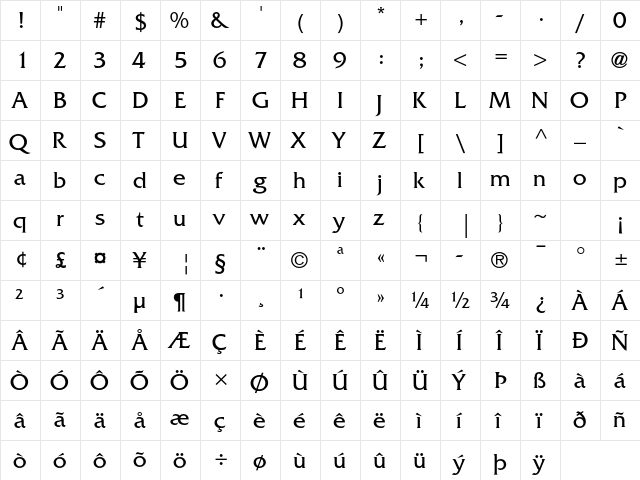
Friz Quadrata Std Medium Font Preview
Friz Quadrata Std Medium
Friz Quadrata Std Medium Font Details
| Designer | Ernst Friz |
Design Context for Friz Quadrata Std Typeface
Friz Quadrata Std takes a measured approach to typography — its balanced proportions and neutral character make it a reliable workhorse for both digital and print work.